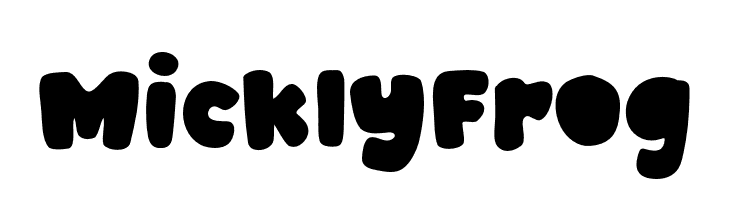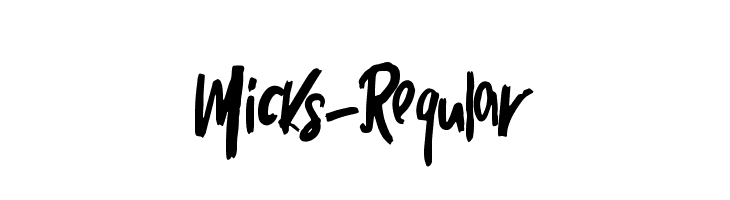
A dynamic and expressive script font with fluid, cursive strokes.
A decorative set of illustrated cartoon character glyphs.
A bold, textured font with a vintage collegiate style, ideal for impactful designs.
A bold, decorative font with a playful, textured design.
A bold, playful font with a cartoon-like, whimsical style.
A bold, playful font with rounded, bubbly characters.
A bold, playful handwritten font with dynamic strokes and expressive character.